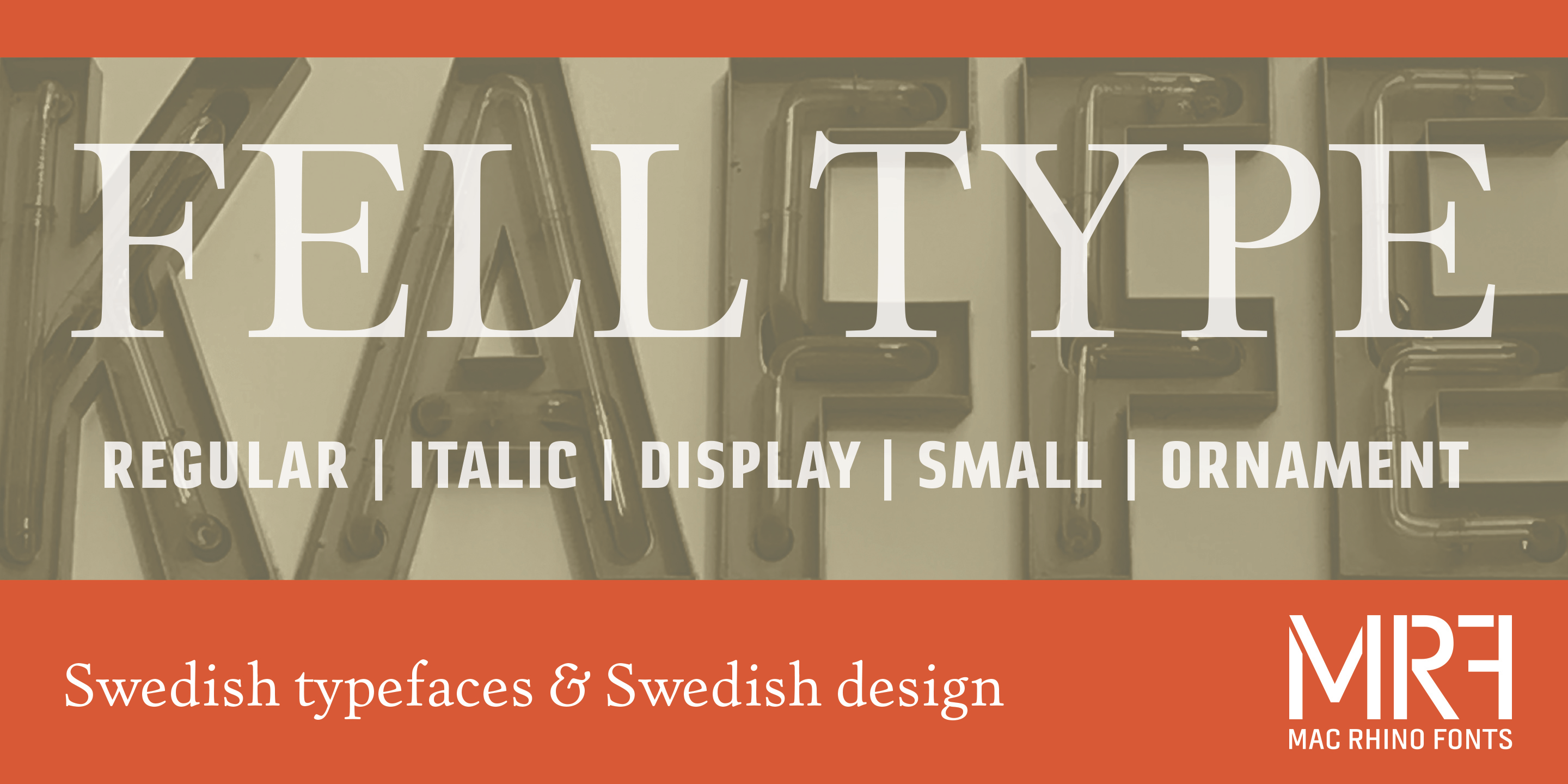
The Fell Type Premium Font is a historically inspired and meticulously crafted typeface, drawing its elegance and character from the classic typefaces of the 17th and 18th centuries. Its distinctive serifs, robust letterforms, and inherent warmth make it an excellent choice for traditional book design, historical documentaries, artisanal product branding, period-piece film titles, literary event invitations, and websites seeking a timeless, academic aesthetic. Whether you’re setting a classic novel or designing a sophisticated brand that speaks to heritage, this font will imbue your project with a sense of authenticity and enduring charm.
What makes the Fell Type Premium Font so exciting is its faithful revival of historical typographic forms, brought to life with modern digital precision. It perfectly captures the irregularities and organic feel of original metal type, offering a unique texture and warmth that many contemporary fonts lack. This font is perfect for designers who want to convey a sense of tradition, craftsmanship, or intellectual depth. It stands out by offering a rich visual narrative, making any text it graces feel like it belongs to a bygone era of meticulous printing and thoughtful composition. The inherent character within each letterform ensures a captivating and memorable reading experience.
The Fell Type Premium Font typically offers a comprehensive family to support diverse design needs, reflecting the versatility of its historical counterparts. While specific variations may depend on the font package, you can generally expect to find a range of weights such as Regular, Italic, Semibold, and Bold, often with corresponding Small Caps and various figure styles (e.g., old-style figures that blend seamlessly with text). Many versions of the Fell Type Premium Font Free Download are rich in OpenType features, including contextual alternates and ligatures that enhance its authenticity and improve textual flow. This extensive family ensures that the Fell Type Premium Font can be adapted to almost any design requirement, maintaining its consistent historical beauty and highly readable elegance throughout your project.